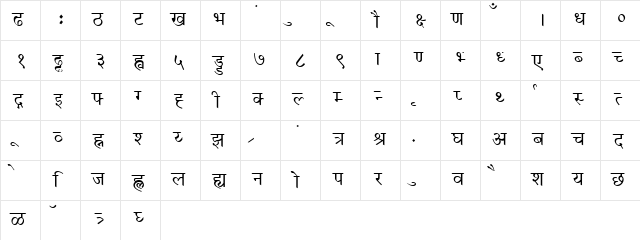
Hindi Demo Vijay Normal Font Preview
Hindi Demo Vijay Normal
Design Context for Hindi Demo Vijay Typeface
Hindi Demo Vijay takes a measured approach to typography — its balanced proportions and neutral character make it a reliable workhorse for both digital and print work.